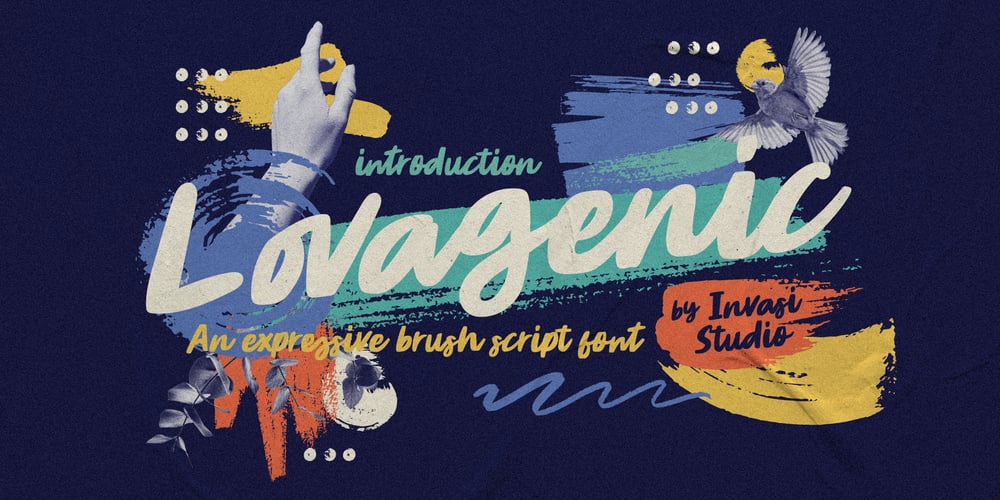
Lovagenic Font Family was designed by Gha Arizal and published by Invasi Studio. Lovagenic contains 1 styles and family package options. Lovagenic is a handmade script font with expressive and organic feels! Comes with ligatures that can be used to add more personality to your projects. Suitable for branding logo, hand lettering, flyers, greeting cards, packaging, or apparel design. This font will never disappoint you if you want to add a handmade touch to your design.